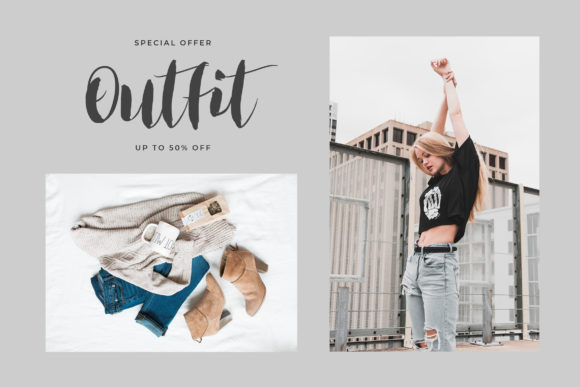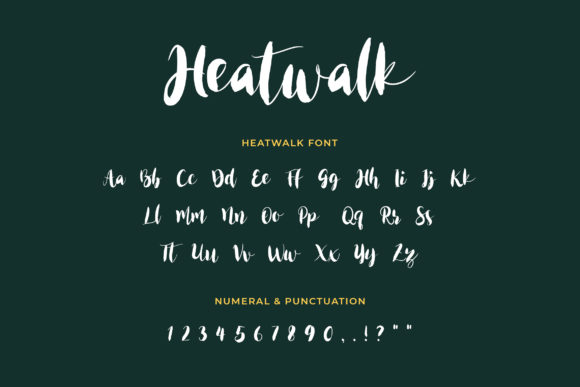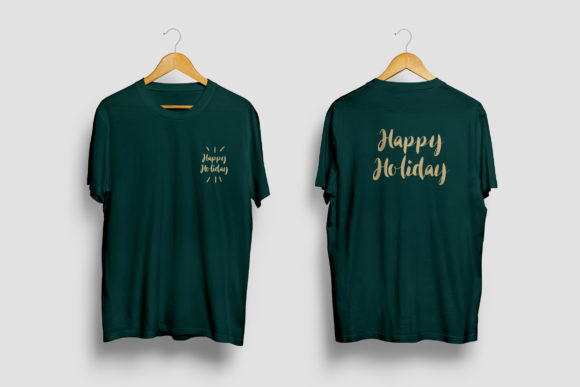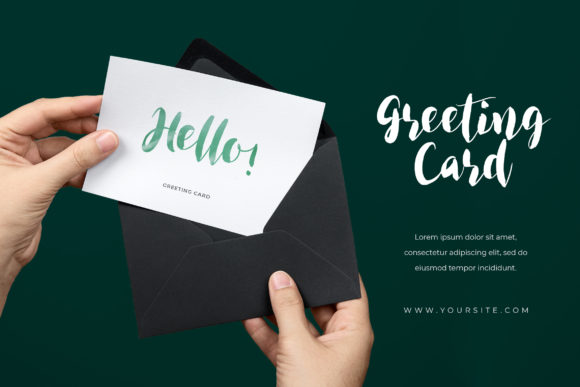
Introduction to Heatwalk Font
Do you remember that moment when you stumbled upon the perfect font for your creative project? The one that instantly elevates your design and brings it to life? For many designers, that moment is what makes all the hard work worth it. And for those who are about to experience it, we’re excited to introduce you to the Heatwalk Font – a simple yet stylish brushed script font that’s sure to leave a lasting impression.
This versatile font has a trendy vibe that can be used for a variety of design ideas, both formal and informal. Whether you’re working on a high-quality brochure, a creative logo, or a social media graphic, Heatwalk Font is an excellent design resource that’s sure to add a touch of sophistication to your work.
Key Features of Heatwalk Font
- High-quality design resource for creative projects
- Perfect for digital designs, including web and mobile applications
- Unique characteristics: Distressed and worn textures for a vintage look
Honest Review: Heatwalk Font
I recently had the chance to work with the Heatwalk Font, and I have to say it’s been a great addition to my design resources. This font is perfect for creative projects where you need a unique and stylish touch.
- ✨ The Heatwalk Font has a high quality design that’s sure to elevate any project.
- ✨ The font has a transparent background, which makes it easy to use in a variety of design scenarios.
- ⚠️ The font may not be suitable for all types of projects, particularly those that require a more traditional or formal look.
- ⚠️ The font’s unique design may not be to everyone’s taste, so it’s essential to consider your target audience before using it.
Overall, I’m really impressed with the Heatwalk Font. It’s a fantastic design resource that can add a touch of creativity to your projects. While it may not be suitable for every project, it’s definitely worth considering for your next creative endeavor.
How to Use Heatwalk Font
Using Heatwalk Font in Design Software
You can use the Heatwalk Font in various design software, including:
– A popular graphic design platform for creating social media graphics, posters, and more.
– Industry-standard software for creating high-quality graphics and designs.
When using the Heatwalk Font in these software, select it as your font of choice and adjust the font size, style, and color to suit your creative project.
Tips for Getting the Most Out of Heatwalk Font
To get the most out of the Heatwalk Font, use it on a transparent background to create a sleek and modern design. You can also combine it with other high-quality design resources to create a unique and eye-catching visual identity.
The Heatwalk Font is ideal for creative projects that require a modern and edgy look, such as:
Alternatives to Heatwalk Font
Monserrat Font is a modern sans-serif typeface perfect for creative projects, especially those requiring a high-quality, urban feel. This font is ideal for logos, headings, and titles in designs with a transparent background.
Montserrat is a free download and can be used in both personal and commercial projects. While it shares a similar modern feel with Heatwalk Font, Montserrat has a more geometric structure and a wider range of font weights.
Open Sans is a clean, friendly sans-serif font suitable for a variety of design projects, including those with a simple, minimalistic aesthetic. It’s a great choice for body text and works well in designs with a transparent background.
Open Sans is another free download font that can be used in personal and commercial projects. Compared to Heatwalk Font, Open Sans has a more neutral and approachable tone, making it ideal for a wider range of creative projects.
Lato Font is a elegant sans-serif typeface designed for modern designs, particularly those requiring a high-quality, sophisticated look. It’s perfect for logos, headings, and titles in designs with a transparent background.
Lato Font is a free download and can be used in both personal and commercial projects. While it shares a similar modern feel with Heatwalk Font, Lato has a more refined and elegant structure, making it ideal for luxury and high-end designs.
4. Roboto Font
Roboto Font is a modern sans-serif typeface designed for digital interfaces and user-friendly designs. It’s a great choice for body text and works well in designs with a transparent background.